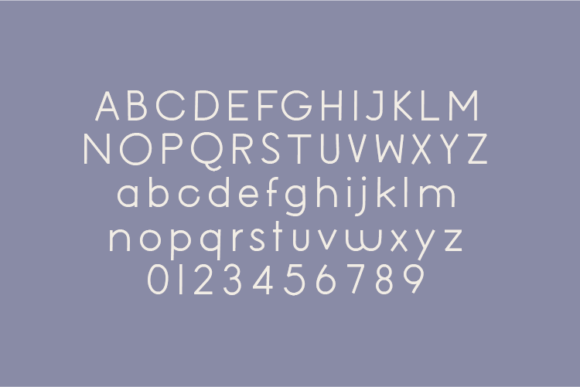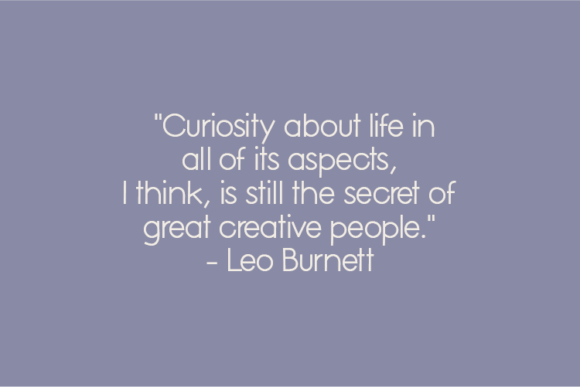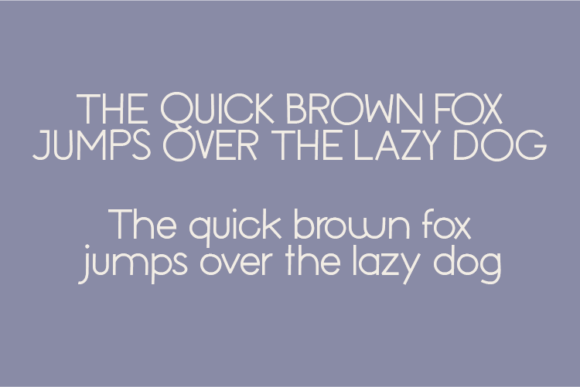
Blessing Font
About Blessing Font
“Blessing” is a remarkable handwritten font that effortlessly combines natural beauty with clean, legible lines. Its versatility is nothing short of astounding, offering designers an exceptional tool to bring their creative visions to life. This font invites you to fall in love with its captivating style, and it’s the key to crafting truly spectacular designs that leave a lasting impact.
At the core of “Blessing” is its innate ability to strike a harmonious balance between the organic flow of handwriting and the precision of clean typography. This unique fusion allows designers to convey a sense of authenticity and approachability while maintaining readability and professionalism. Whether you’re designing an elegant wedding invitation, a memorable logo, or engaging digital content, “Blessing” lends a touch of timeless charm to your work.
The font’s versatility knows no bounds. It can seamlessly transition between various design contexts, from formal to casual, making it an ideal choice for a wide range of projects. “Blessing” brings a sense of warmth and sincerity to your designs, fostering a deeper connection between your audience and your creations.
In the world of design, fonts play a pivotal role in conveying emotions, establishing brand identity, and setting the overall tone of a project. “Blessing” excels in these aspects, as its handwritten appearance evokes feelings of intimacy and personal touch. It’s perfect for brands looking to establish a genuine connection with their audience and for designers aiming to stand out in a crowded digital landscape.
To sum it up, “Blessing” is more than just a font; it’s a powerful creative tool. With its natural elegance, cleanliness, and unparalleled versatility, it allows designers to bring their visions to life in the most captivating and memorable way possible. So, whether you’re an aspiring designer or a seasoned professional, let “Blessing” be your guiding star in the world of design, and watch as your creations turn into spectacular works of art that resonate deeply with your audience.